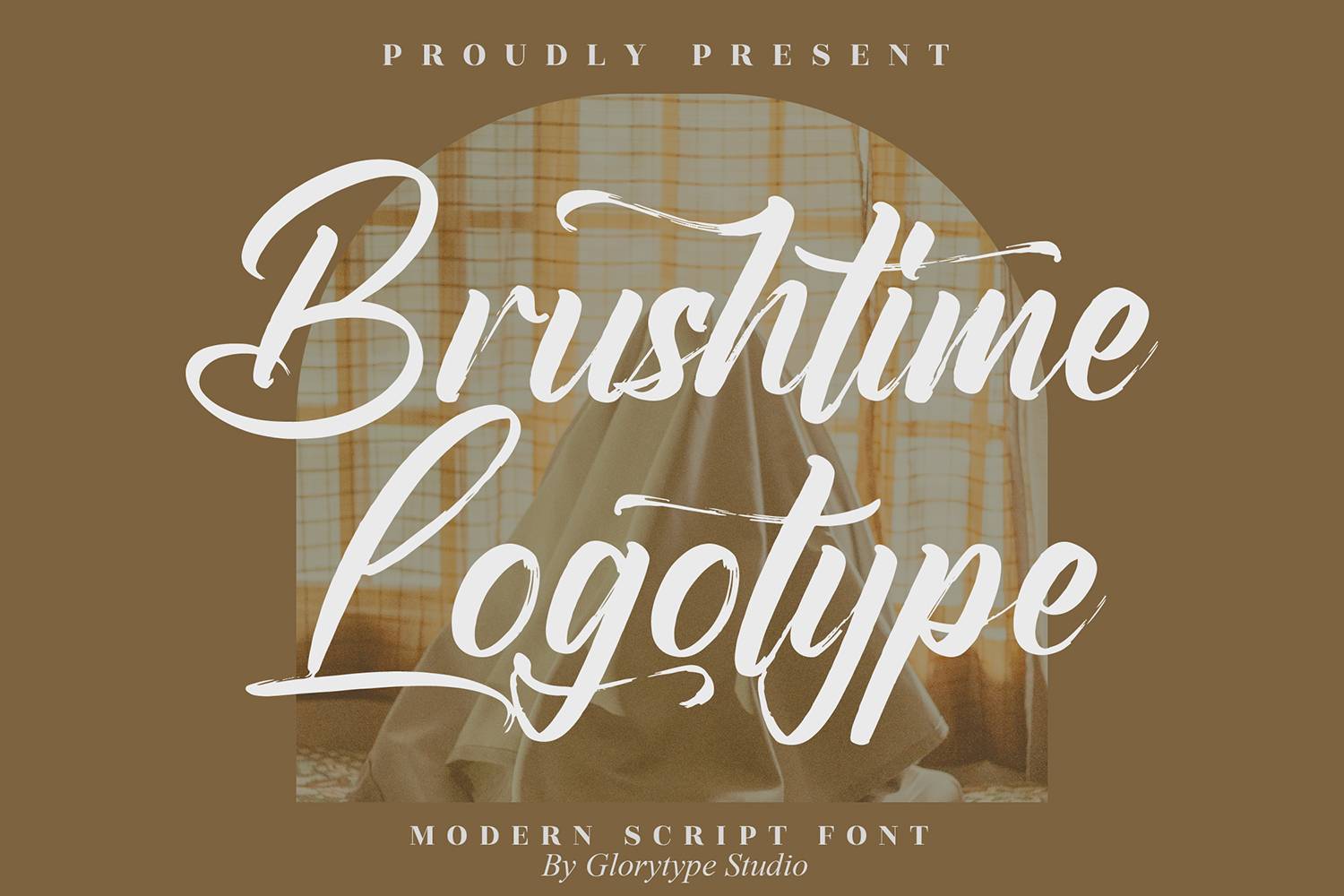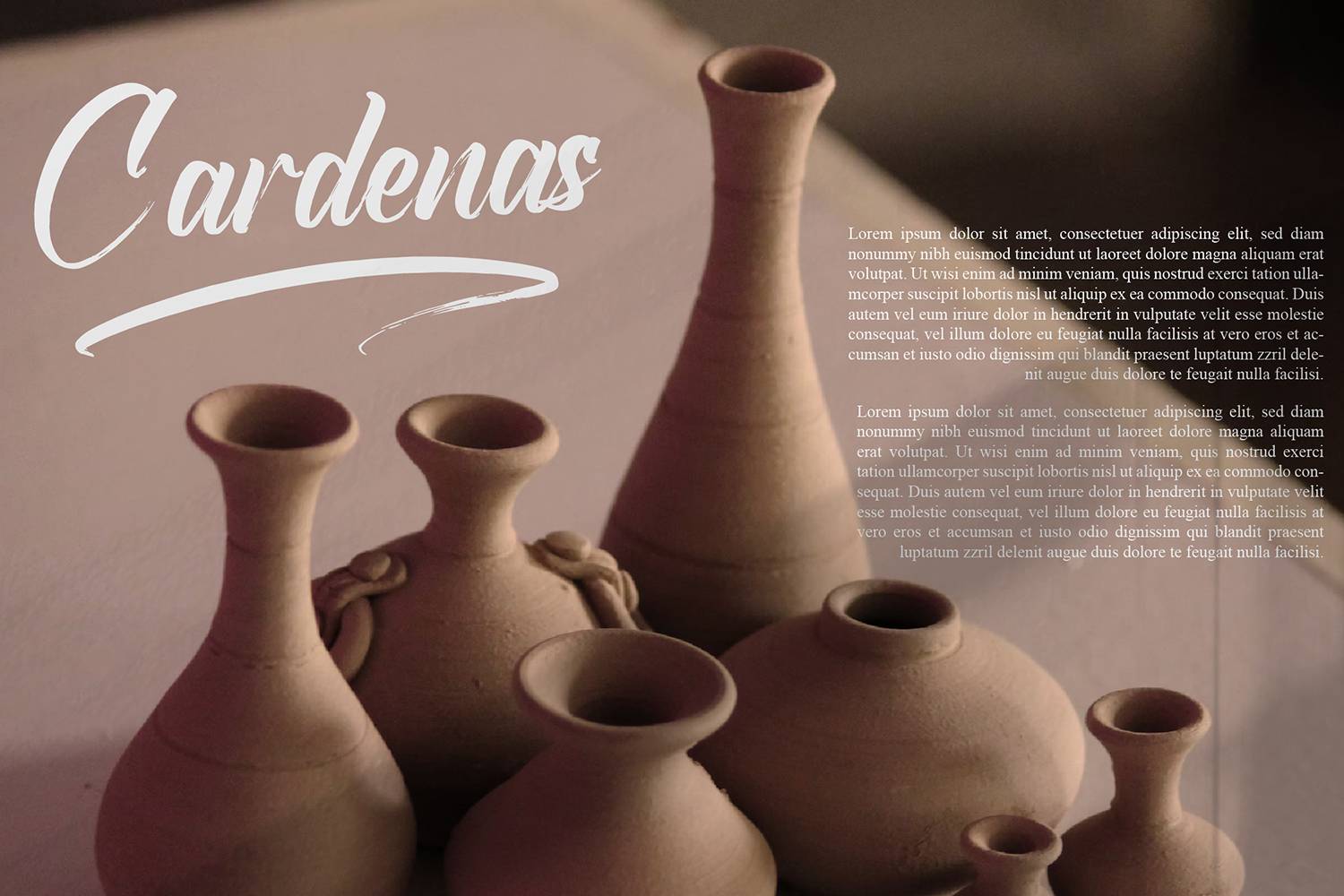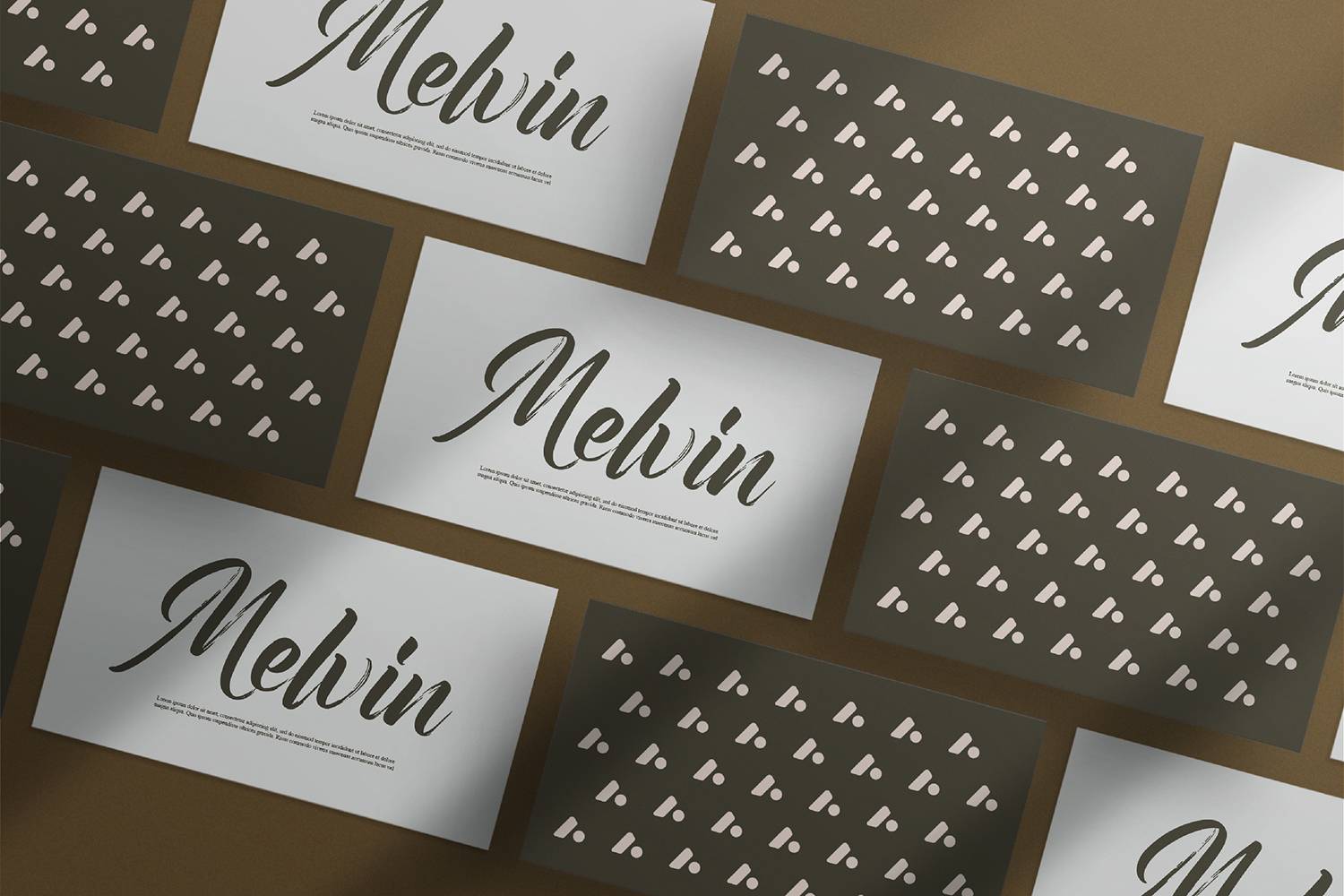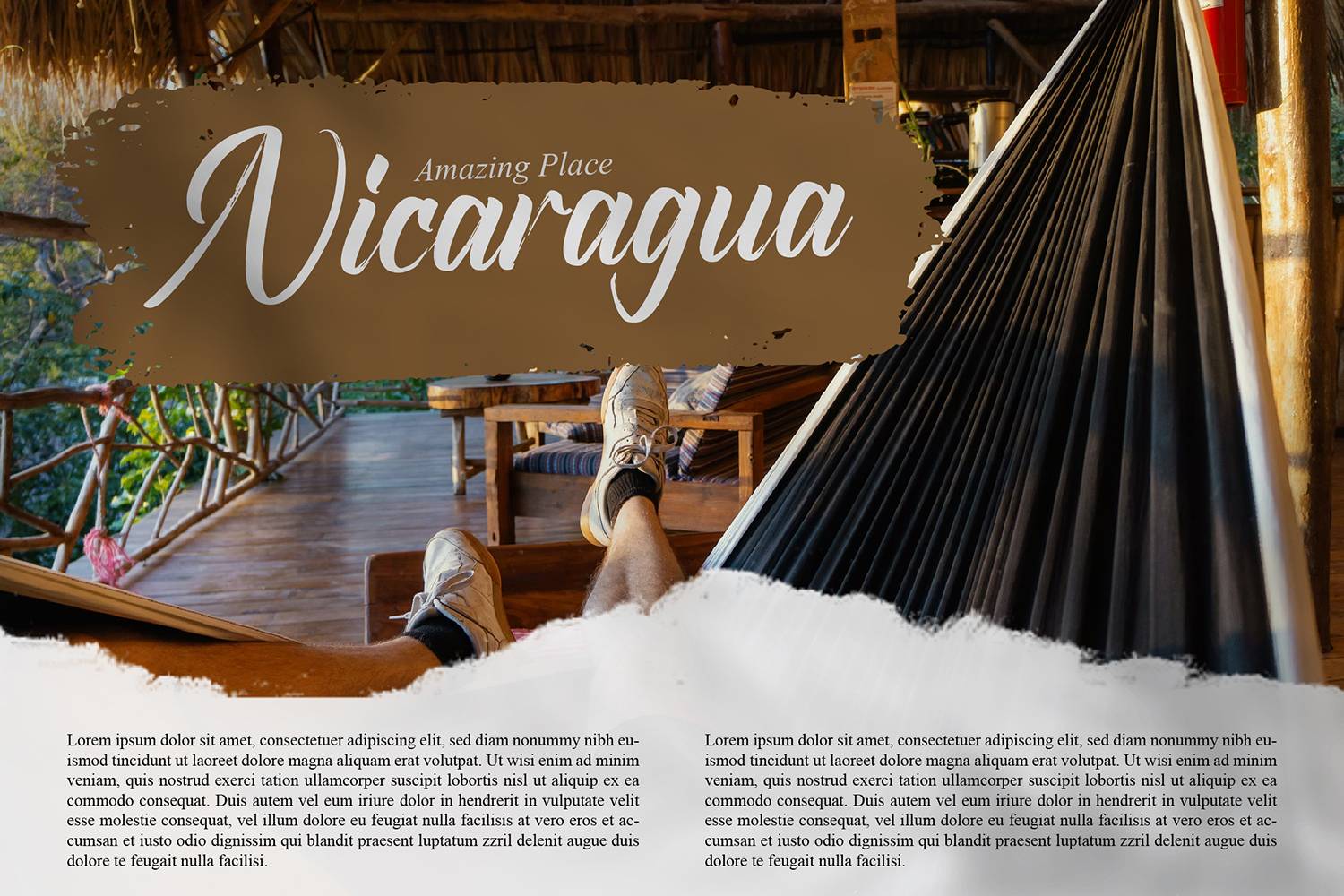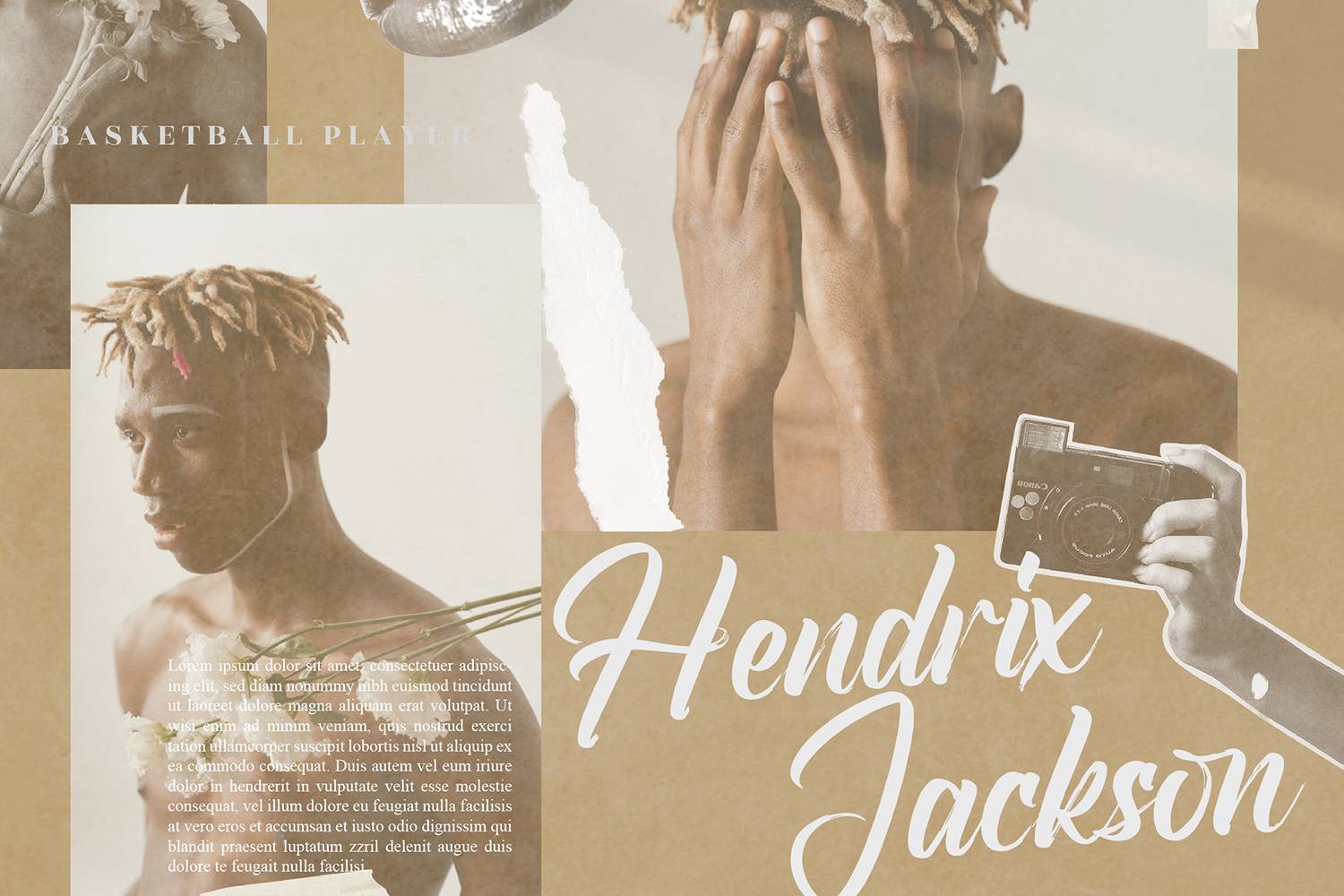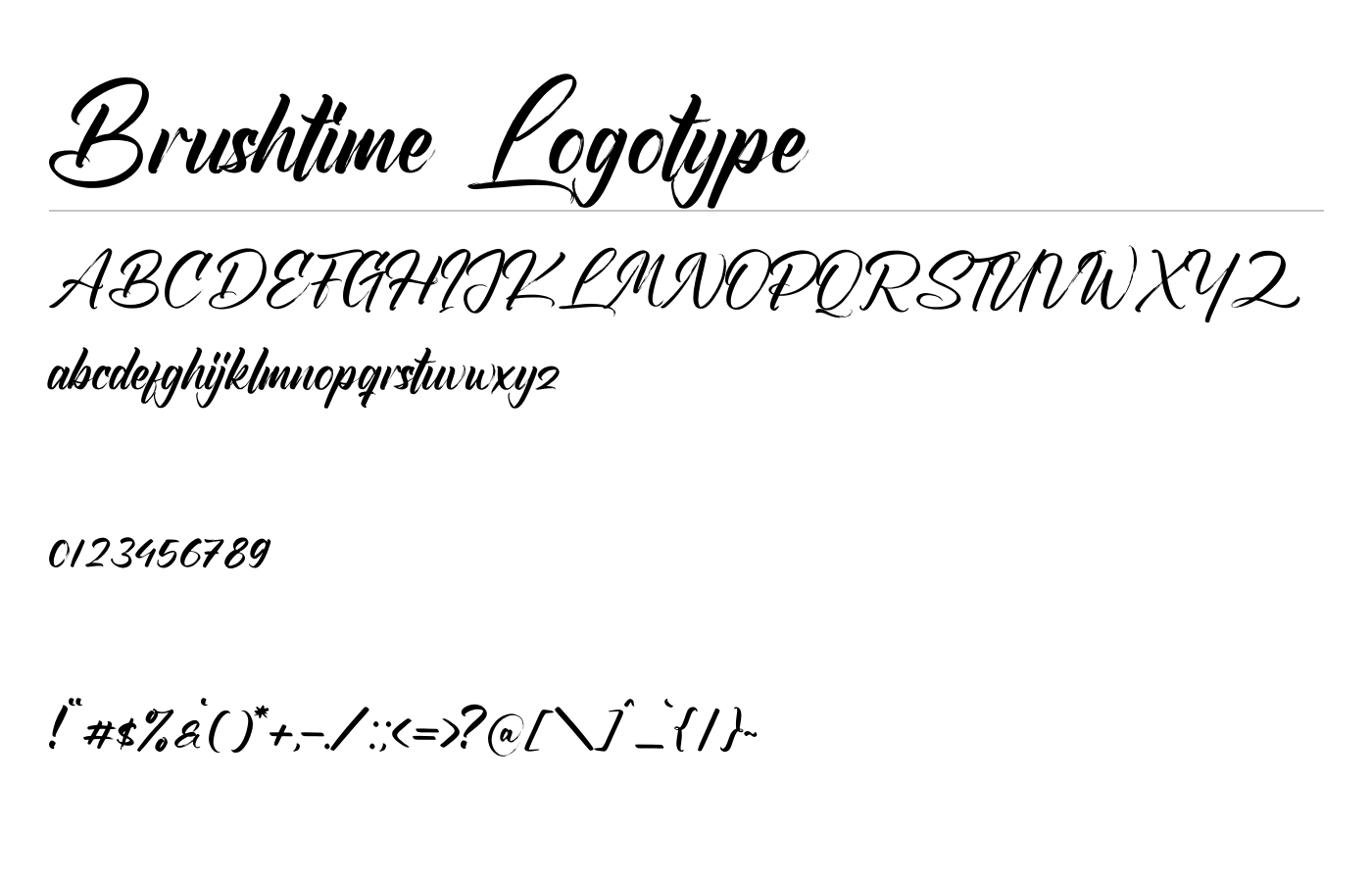
Brushtime Logotype is a stylish script font that captures the look of elegant brush calligraphy with its flowing, high-contrast strokes and smooth, natural curves. It offers a refined yet lively personality, making it perfect for sophisticated branding, invitations, and creative projects that want a personal, handcrafted feel. This font shines in logos and headlines where its graceful movement and artistic flair can truly stand out.
Brushtime Logotype Font
About Brushtime Logotype Font